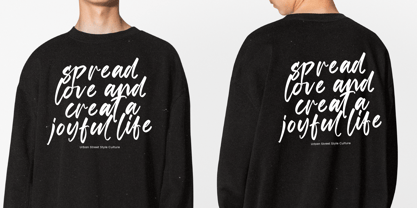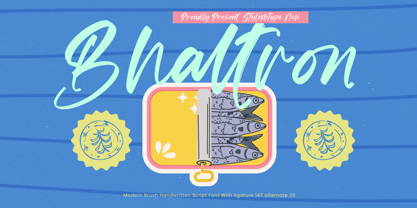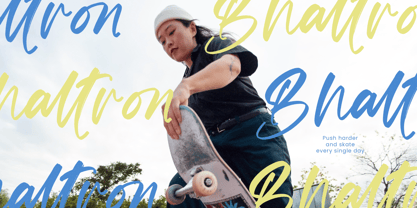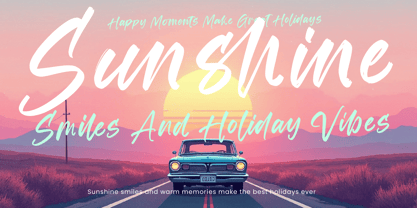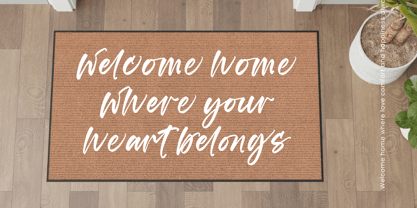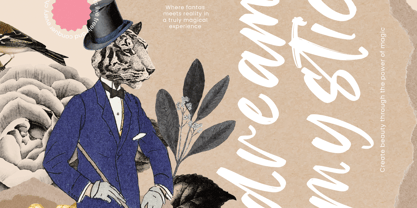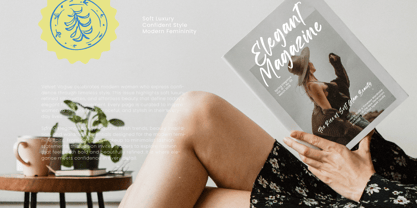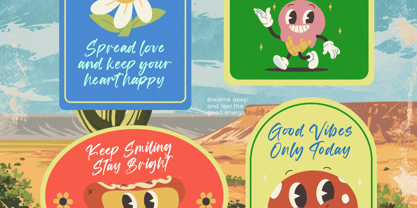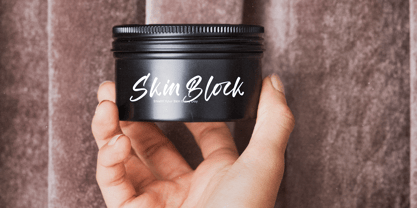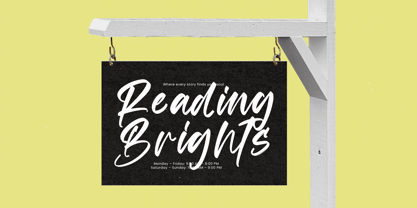
Bhaltron
La familia tipográfica Bhaltron fue diseñada por Heru Utama Putra y publicada por Stylishtype Studio. Bhaltron contiene 2 estilos y opciones de paquete familiar. Más información sobre esta familia
Bhaltron is a modern brush handwritten script font designed with energetic strokes, playful character flow, and bold handcrafted expression. Featuring 147 ligatures and 26 alternates, this typeface delivers a dynamic, natural brush texture that elevates branding, packaging, editorial layouts, social media content, food illustrations, and creative advertising. Its fast–paced handwritten movement gives every word a lively personality, making Bhaltron perfect for projects that need a stylish, youthful, and expressive script aesthetic with a handcrafted touch.